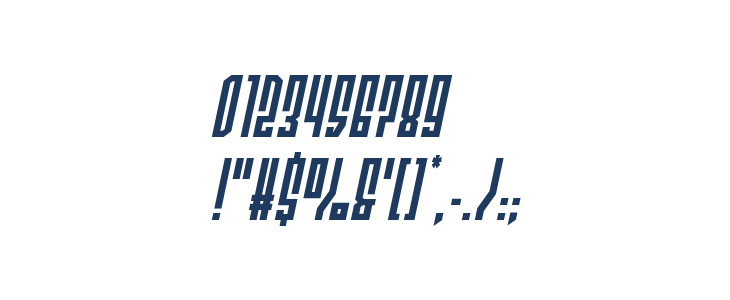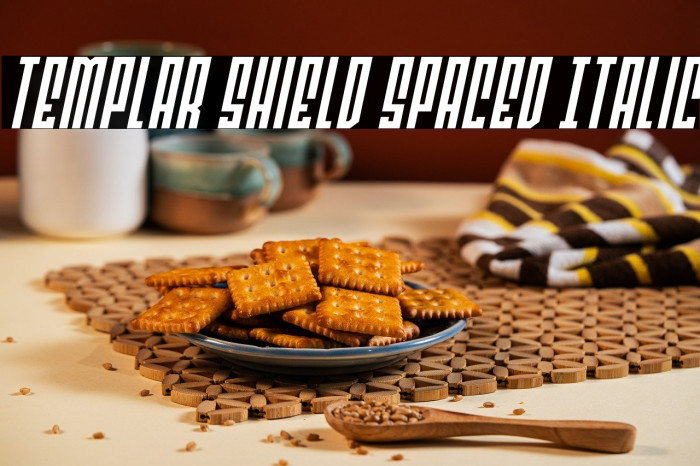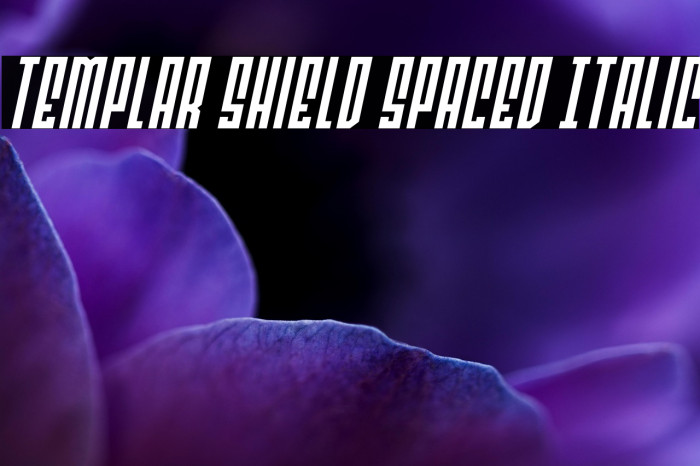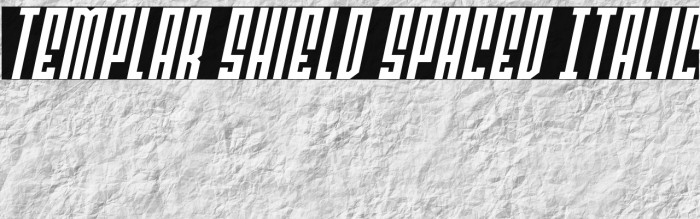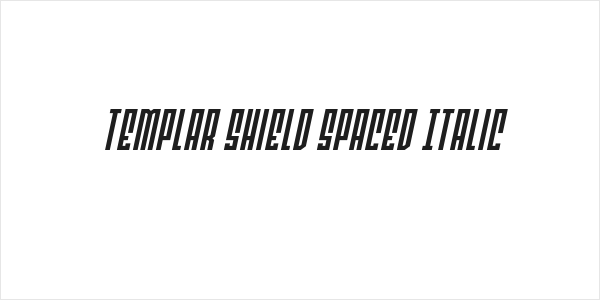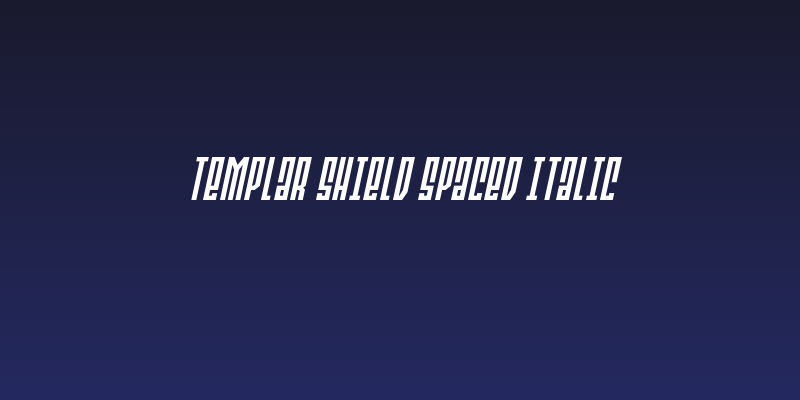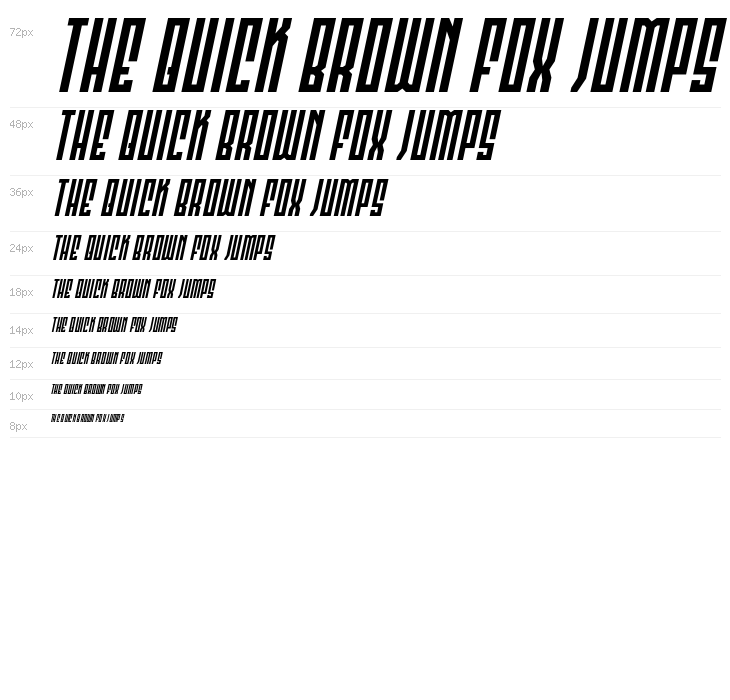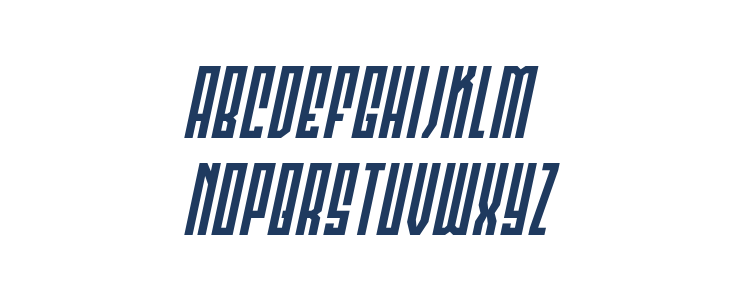
Templar Shield Spaced Italic Font
Templar Shield Spaced Italic Description
This font features a bold and dynamic design with a strong italic slant, giving it a sense of movement and urgency. The characters are tall and narrow, with sharp angles and a futuristic appearance. The uppercase and lowercase letters maintain a consistent style, with a uniform stroke width that enhances readability. The numerals and special characters are designed to match the overall aesthetic, making them suitable for a variety of applications. The font's unique style is both modern and edgy, making it ideal for projects that require a distinctive and impactful look.